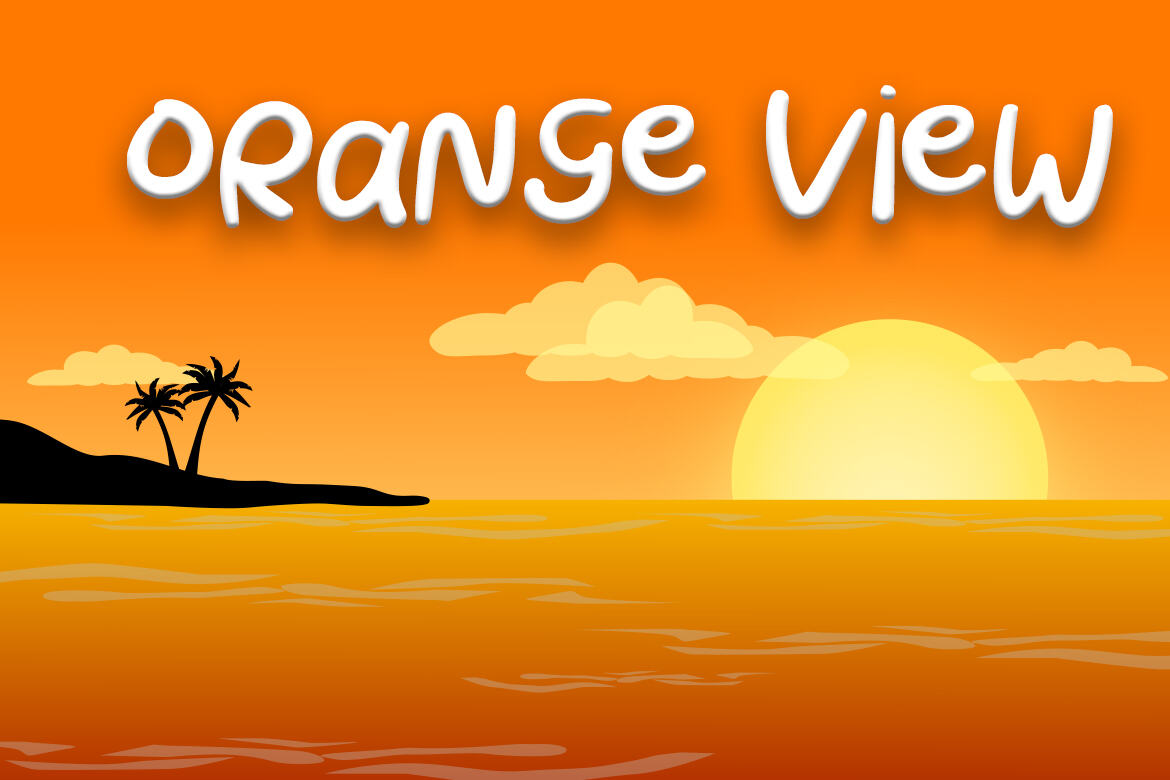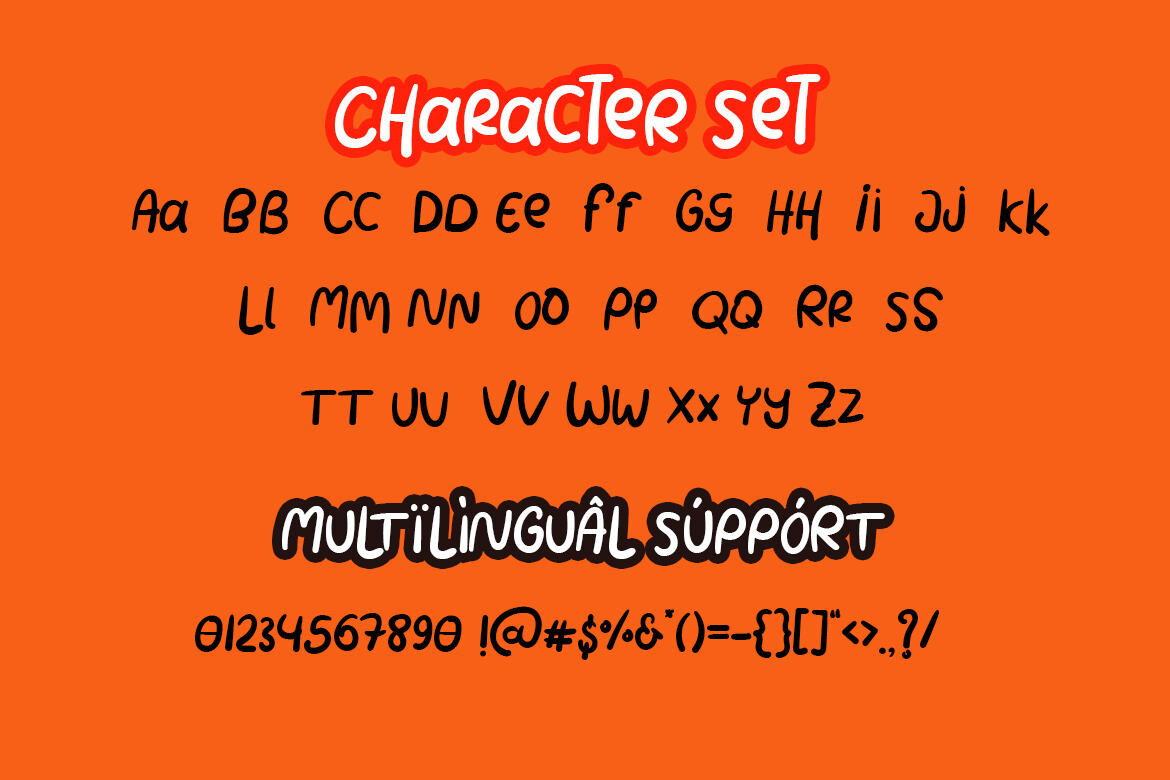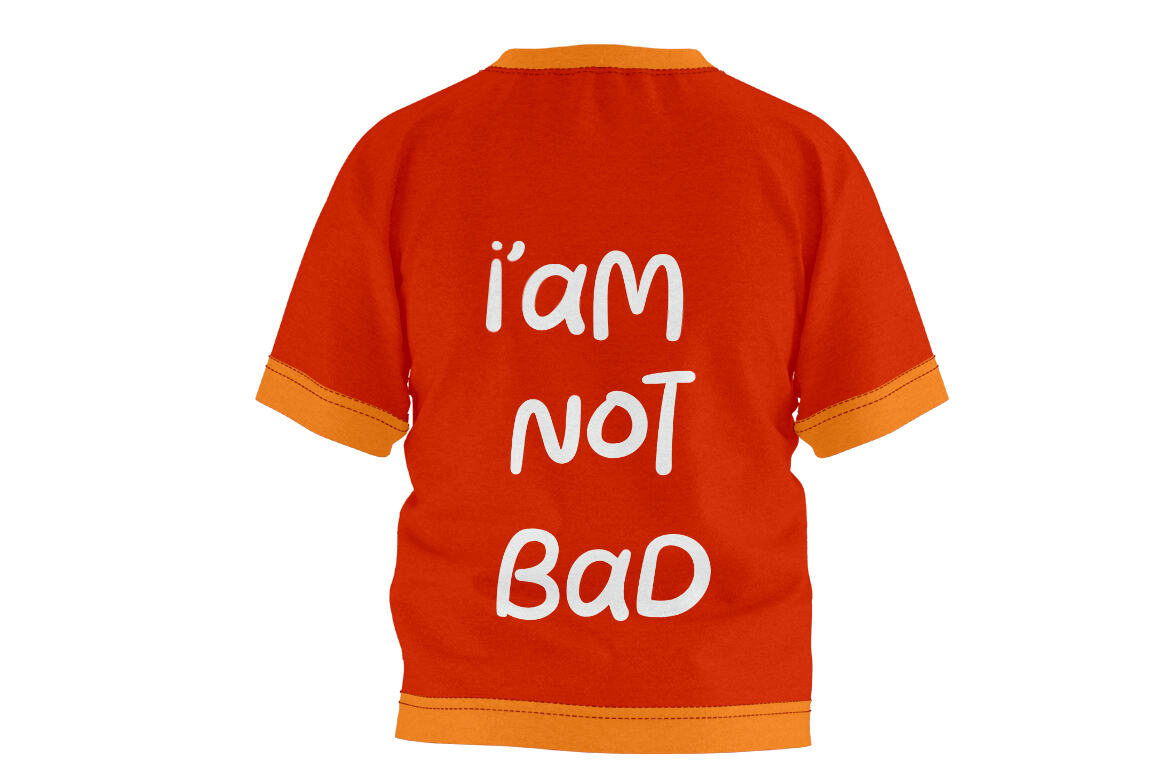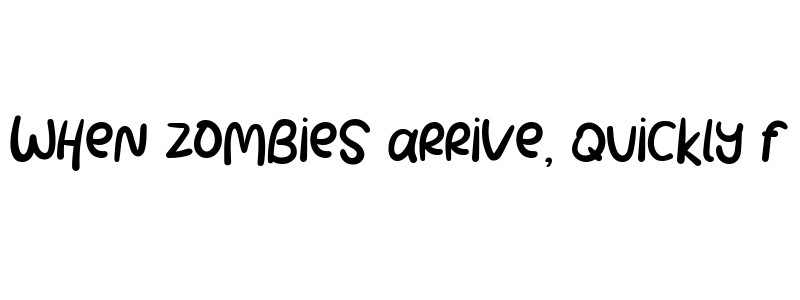
Proteeh Funny FREE Font
Proteeh Funny
Proteeh Funny is a cute and smooth display font. It embodies playfulness and authenticity and is the perfect choice for any children activity or school project.
• support multilingual